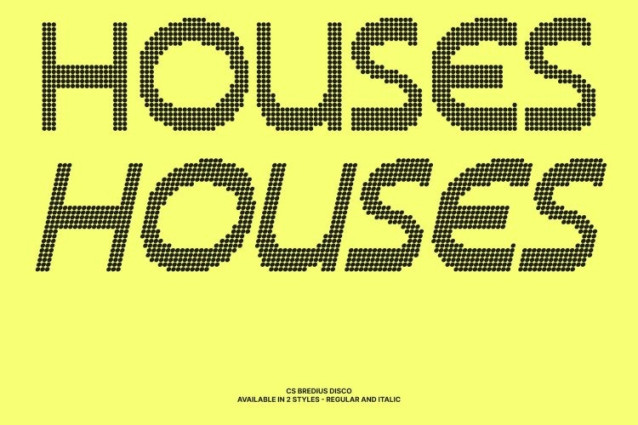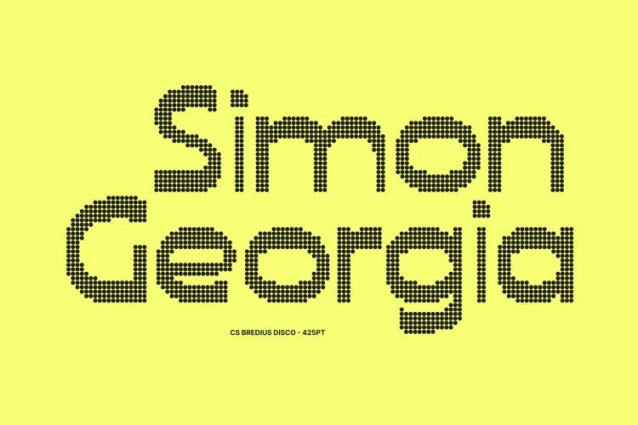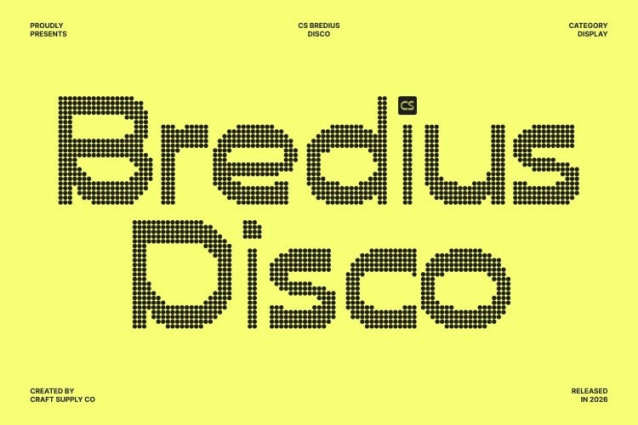
CS Bredius Disco Font
CS Bredius Disco Font This is a cheerful and distinctive display font that celebrates individuality through unconventional shapes and lively rhythm. Inspired by the playful visual language of the 70s to early 80s, each letterform carries a funky twist that brings movement, spontaneity, and disco-era joy to any design.
Unusual Letterforms with Retro-Creative Flair
What makes special is its quirky letter design every character feels handcrafted, bold, and full of personality. Uneven strokes and whimsical proportions create an organic, dancing flow, making the font perfect for projects that embrace originality, creativity, and a carefree retro spirit.
Perfect for Playful and Expressive Branding
From posters and logos to editorial layouts and promotional visuals, shines where imagination leads the way. Its bold yet friendly aesthetic makes it ideal for modern brands, creative studios, event promotions, and lifestyle designs that want to feel energetic, approachable, and visually expressive.
Vibrant, Fun, and Full of Disco Life
More than just a quirky font, this font is a celebration of design freedom. Its cheerful forms and engaging rhythm turn text into a visual performance confident, playful, and impossible to ignore. Use this font to infuse your designs with personality, joy, and retro-inspired energy.